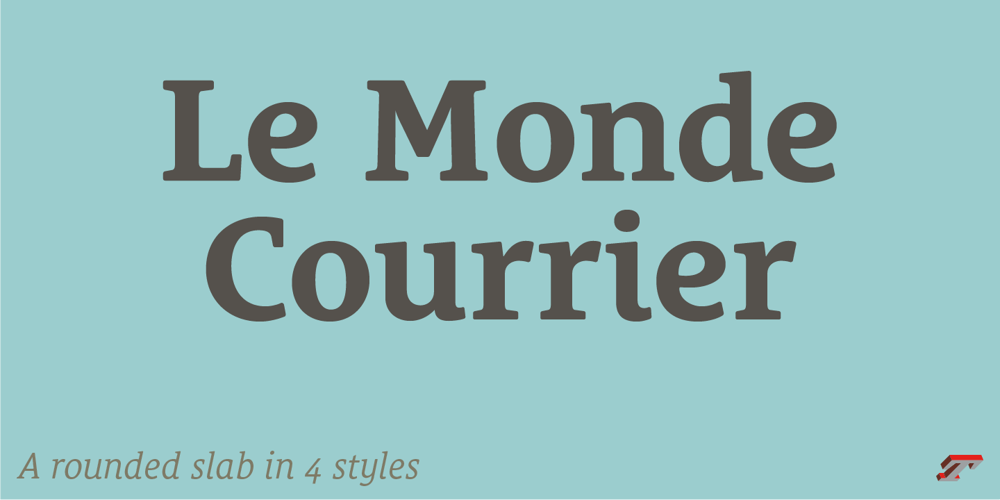
Le Monde Courrier Std
Le Monde Courrier Std Font Family was designed by Jean François Porchez and published by Typofonderie. Le Monde Courrier Std contains 4 styles and family package options. A rounded slab in 4 stylesIn our age, since the arrival of microcomputing, the majority of professional letters have been composed in quality typefaces. Typewriters & the typestyles they used have become antiques. A letter set in Times or Helvetica & printed with a laser printer at 600 dpi or more are of such quality that one can no longer distinguish it with a document produced by offset printing. But letters composed in this way appear overly institutional when a bit of informality is needed. Le Monde Courrier, designed by Jean François Porchez, attempts to re-establish a style halfway between writing and printing.Informal neo-tech styleThis rounded slab serif returns the informal character of “typewritten” fonts to letters and suit well all bad conditions, from inkjet printed memos to webfonts use. With a unique typographic colour, it integrate itself with the rest of the Le Monde family with effective contrast. The verticals metrics and proportions of Le Monde Courrier are calibrated to match perfectly others Typofonderie families.Bukva:raz 2001Type Directors Club .44 1998European Design Awards 1998